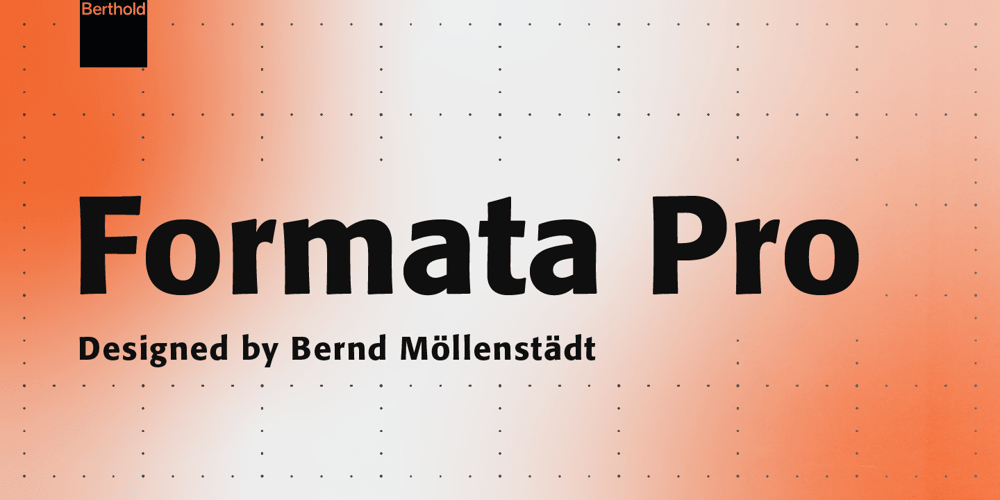
Formata
Formata font
Formata Font Family was designed by Bernd Möllenstädt and published by Berthold. Formata contains 52 styles and family package options. Bernd Möllenstädt’s first type design, Formata, was released in 1984. Instead of linear severity common to many sans serifs, Formata offers curved strokes and interesting details that are subtle in smaller sizes but distinguishable in larger sizes, thus, appropriate for both text and display. The family has an extensive weight range complimented by small caps, old style figures, fractions and the Euro symbol for both the normal and condensed versions. The breadth of the family makes it an excellent choice for a wide range of applications from bodies of text, office memorandum, scanning and faxing documents to attention-grabbing headlines.